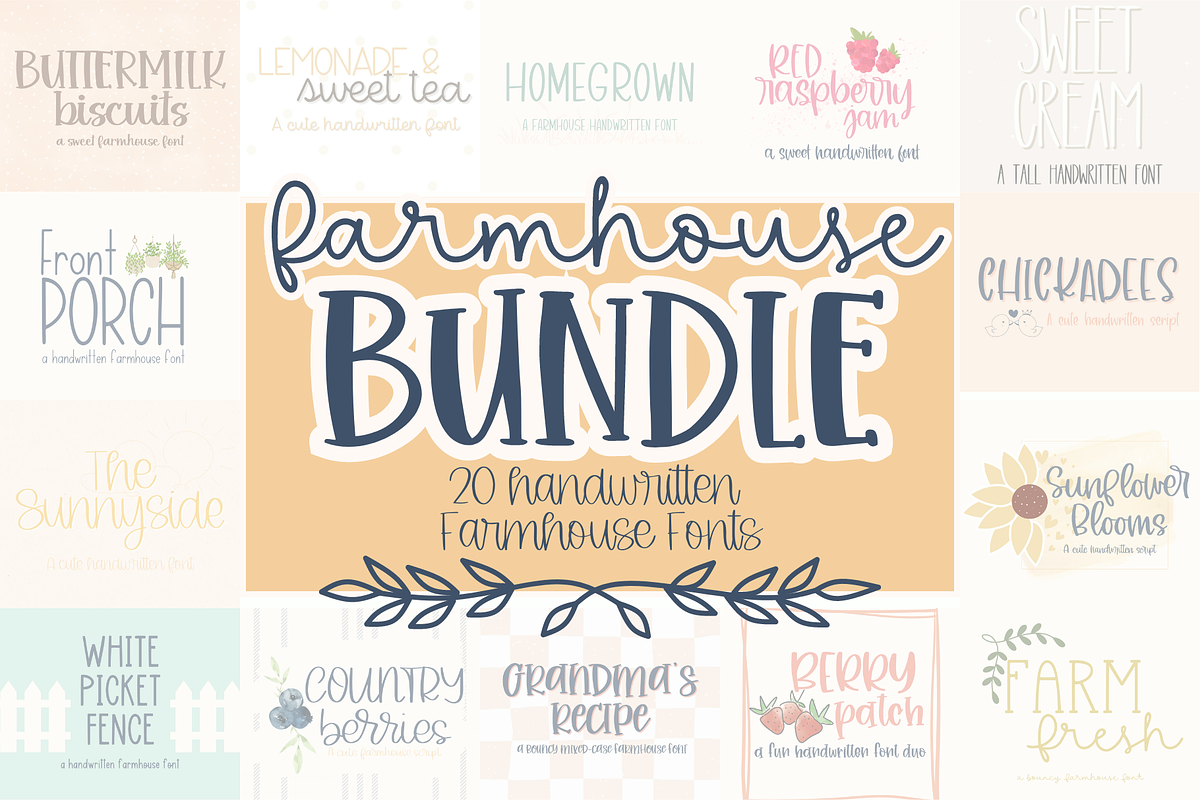
Farmhouse Handwritten Font Bundle is perfect for rustic wedding invitations, country-style branding, handcrafted product packaging, farm-to-table restaurant menus, artisan craft labels, vintage home decor signage, organic food marketing, and cozy lifestyle blog graphics.
What makes Farmhouse Handwritten Font Bundle so exciting is its authentic rustic charm that captures the warmth and simplicity of countryside living through genuinely hand-lettered character designs. This comprehensive collection features multiple handwritten styles that evoke the personal touch of artisan craftsmanship and traditional country aesthetics. The bundle's diverse range of scripts and casual lettering styles make it perfect for brands seeking to communicate authenticity, warmth, and handmade quality.
The Farmhouse Handwritten Font Bundle family includes multiple script variations, decorative elements, flourishes, and complementary sans-serif options that provide designers with complete typographic systems for creating cohesive rustic brand identities.
Farmhouse Handwritten Font Bundle Free Download offers designers an exceptional collection of authentic handwritten typography that perfectly captures the essence of rural charm and artisan craftsmanship. This versatile font bundle excels in applications where personal touch and countryside aesthetics are central brand elements, making it ideal for farm businesses, artisan food producers, country venues, and lifestyle brands. The collection's handcrafted character makes it particularly effective for small businesses and local enterprises wanting to communicate genuine authenticity.
The carefully crafted letterforms throughout the Farmhouse Handwritten Font Bundle maintain natural handwriting characteristics while ensuring excellent readability across various applications. Each style within the bundle reflects genuine penmanship qualities that create believable hand-lettered appearances rather than artificial script effects. This authenticity makes the fonts valuable for projects requiring genuine rustic charm.
For countryside and artisan branding, Farmhouse Handwritten Font Bundle provides the perfect collection for businesses wanting to establish authentic connections with customers through heartfelt typography. The bundle's diverse styles allow for flexible brand expression while maintaining consistent farmhouse aesthetics across all marketing materials where handcrafted typography enhances emotional brand connections.